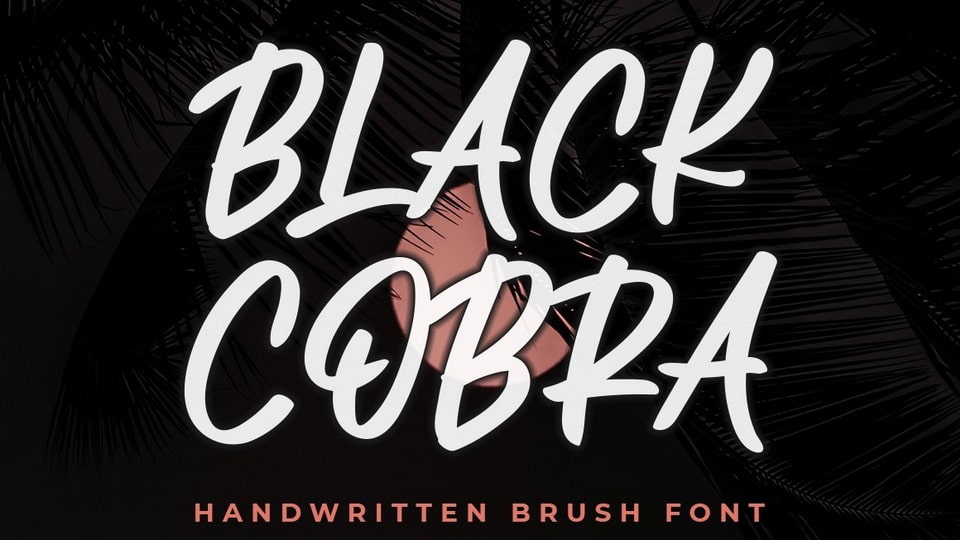
Download Black Cobra font, a script that has beautiful scratches like handwriting but is also very cool. Black Cobra font is perfect for logo designs, brochure designs, magazines, t-shirt designs, business cards, invitations, quotes, cover, watermarks, fashion, logo branding.